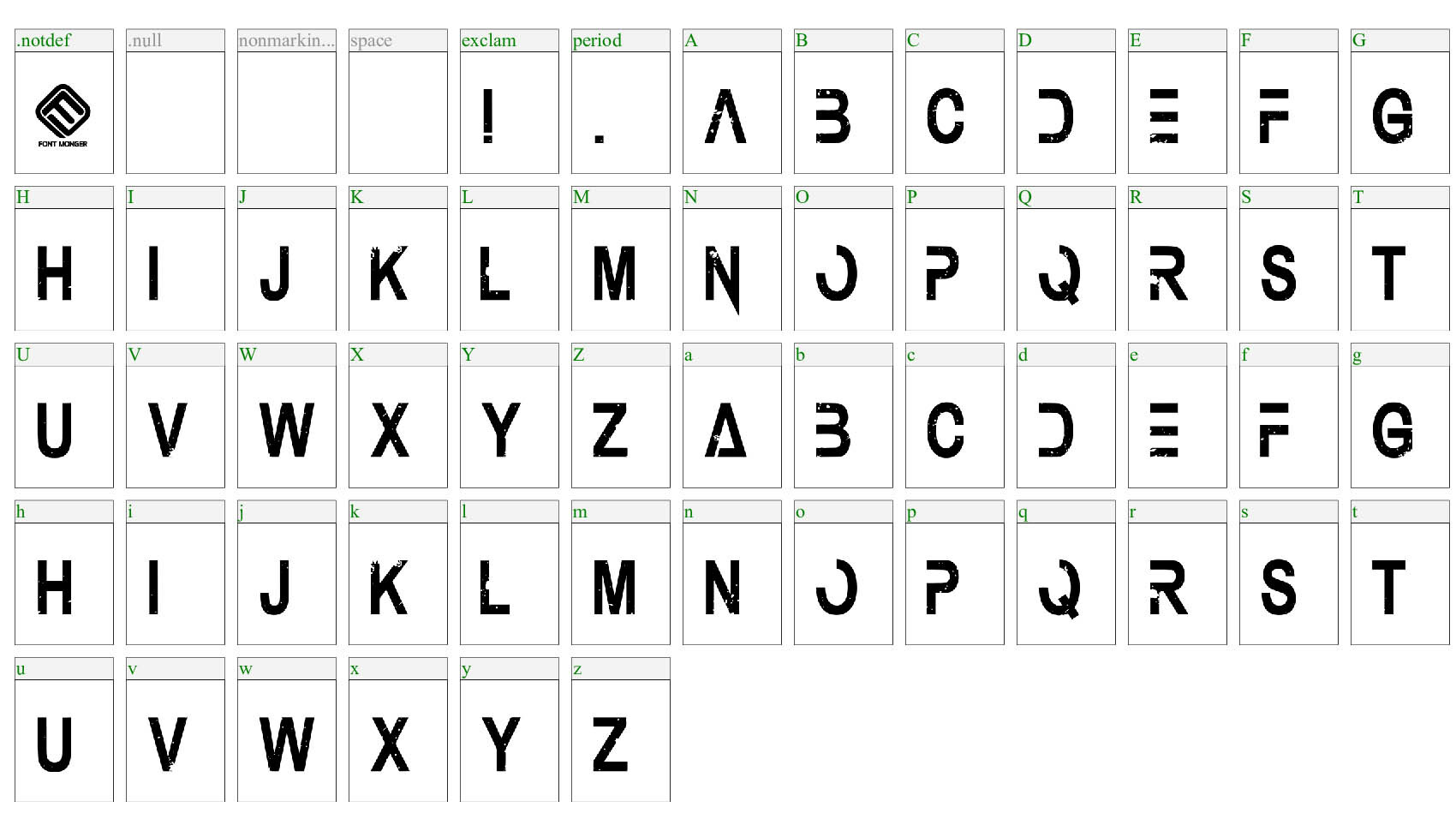
Uppercase: Yes, The letter N and A differ from lowercase
Lowercase: Same as uppercase, The letter N and A differ from uppercase
Numbers: No
Punctuation: Only the period and exclamation point symbols
Symbols: No
Accents: No
Theme: Sci-fi, Eroded